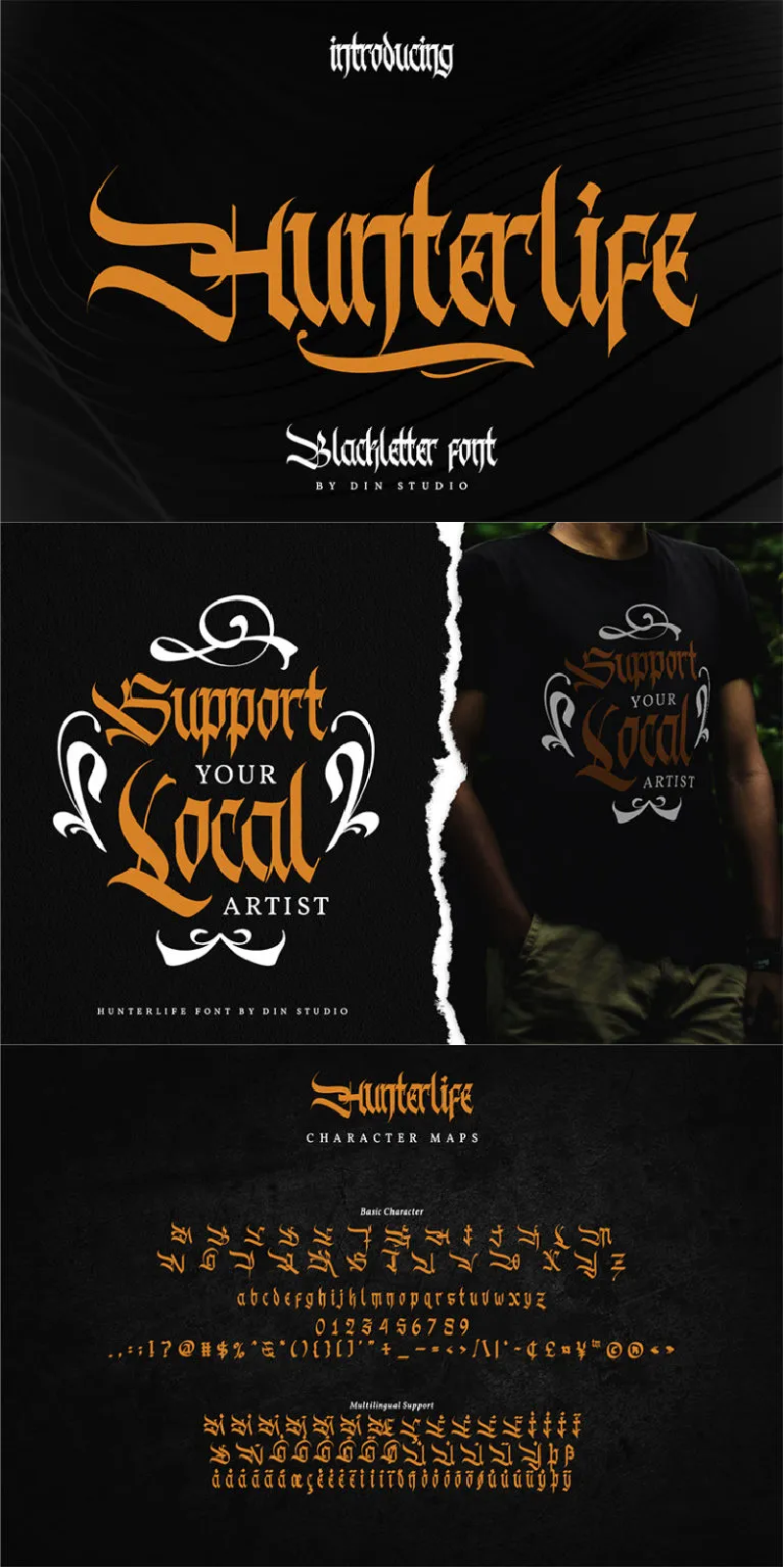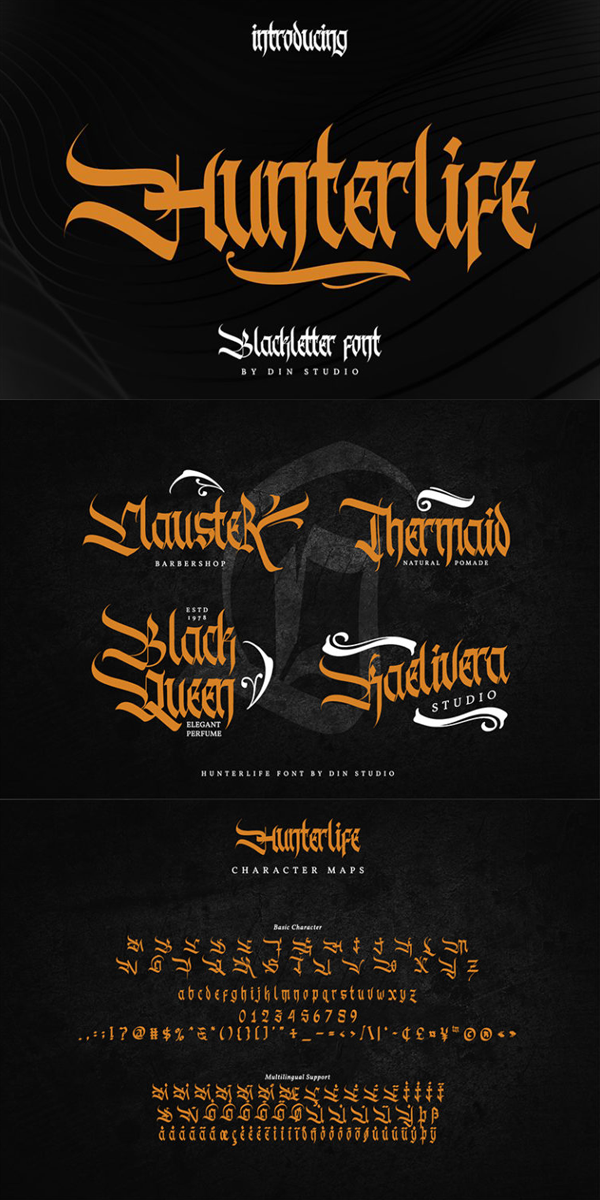
Hunterlife Font
About Hunterlife
Hunterlife is authentic and modern blackletter font. The font is suitable for any branding project like logo, t-shirt printing and many more. Outstanding in a wide range of contexts. See the previews above to get some inspiration on how you can use them. Happy Designing!
Featured :
– Alternates
– Accents (Multilingual characters)
– PUA encoded
– Numerals and Punctuation (OpenType Standard)
– Extra Ornaments